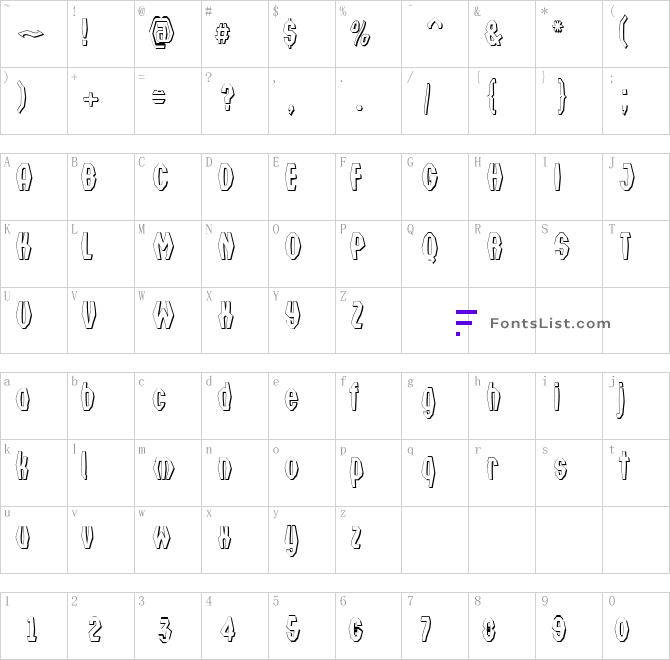
- Font Name:a_Technics3DFsy
- Subfamily:DemiBold
- Subfamily:ArsenalCompany: a_Technics3DFantasy: 1998
- Full Name:a_Technics3DFsy DemiBold
- Weight:600
- PostScript:a_Technics3DFsy-DemiBold
a_Technics3DFsy-DemiBold.ttf is a very beautiful artistic font, a_Technics3DFsy-DemiBold.ttf is widely used in the design and printing of various books and pictures,a_Technics3DFsy-DemiBold.ttf has a strong visual impact,a_Technics3DFsy-DemiBold.ttf is a commonly used font in newspapers, magazines and books, and is used in posters, e-commerce Poster design, store design, logo design, font design and other fields.a_Technics3DFsy-DemiBold.